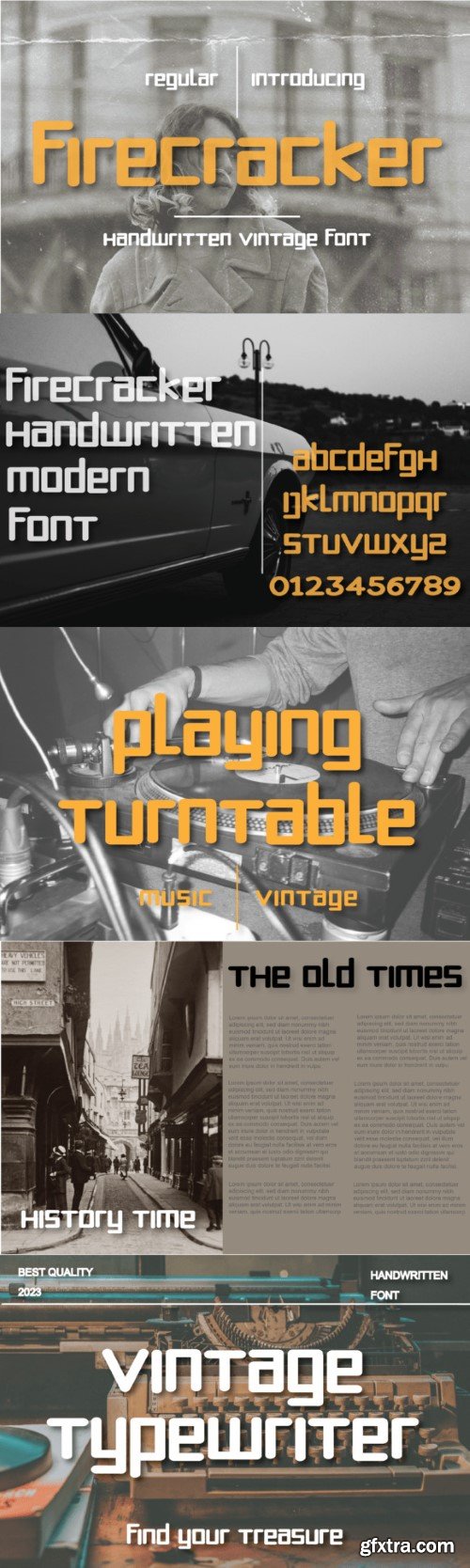
火药字体
Firecracker is a very elegant typeface designed with the goal to achieve a luxurious aspect. It can be used wonderfully for packaging designs, fashion branding, fragrance and cosmetics packaging designs, social media posts, etc. Use it with confidence in your creations and you will see amazing results.